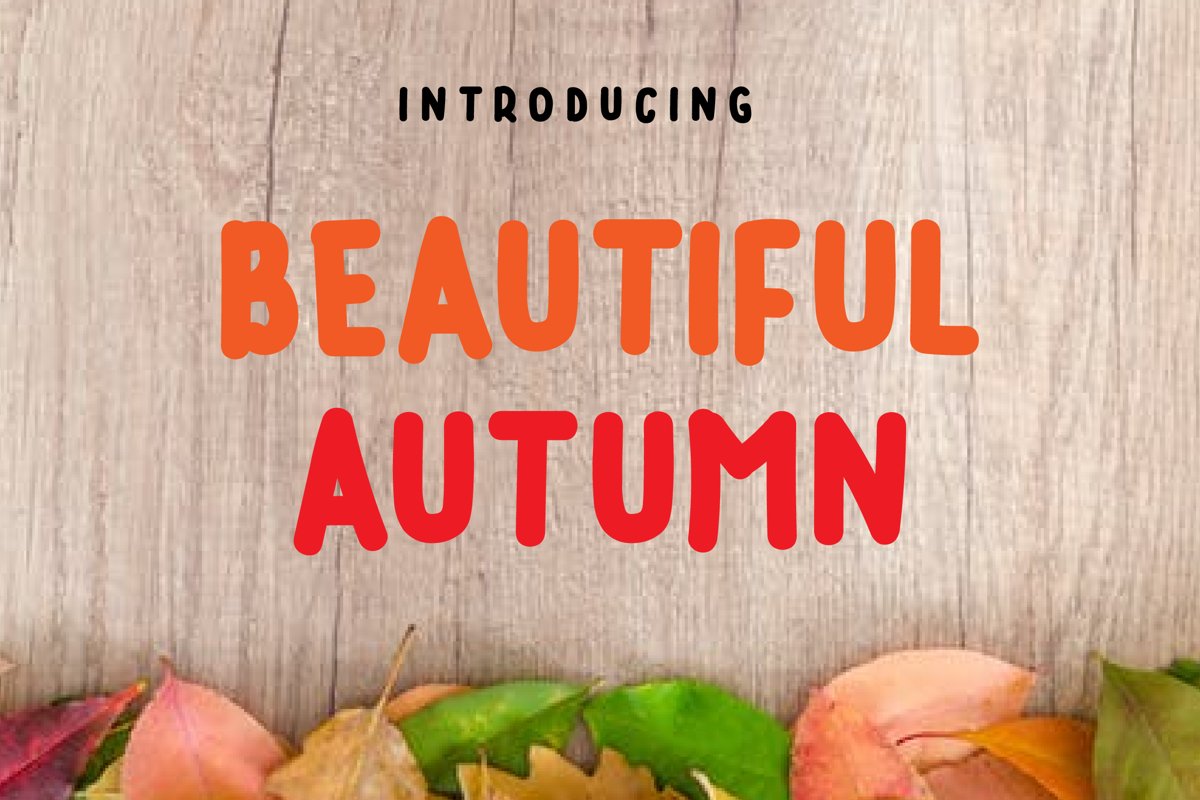
Beautiful Autumn
BEAUTIFUL AUTUMN
Beautiful Autumn is a sweet and simple hand-drawn font. His brave character adds a lot of personality to any project. It is suitable for logos, for items to purchase with unlimited sales, and can be changed into web fonts!